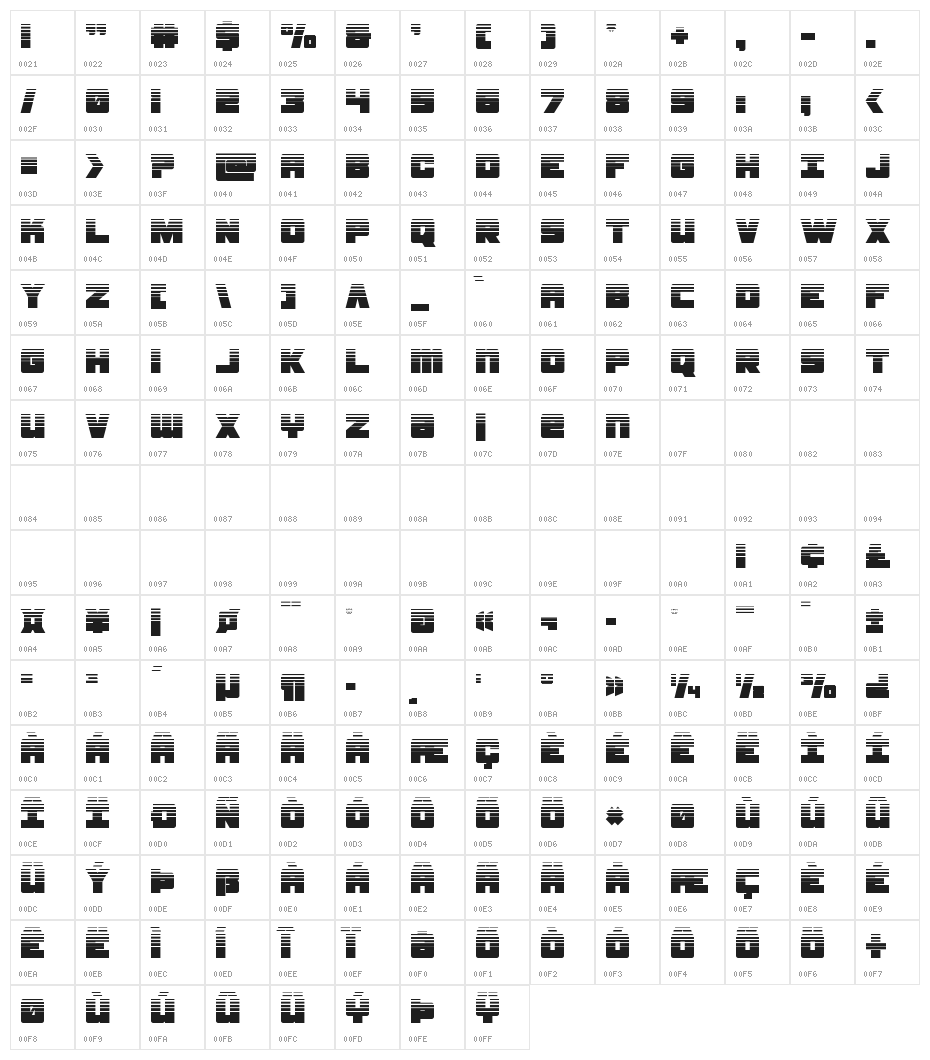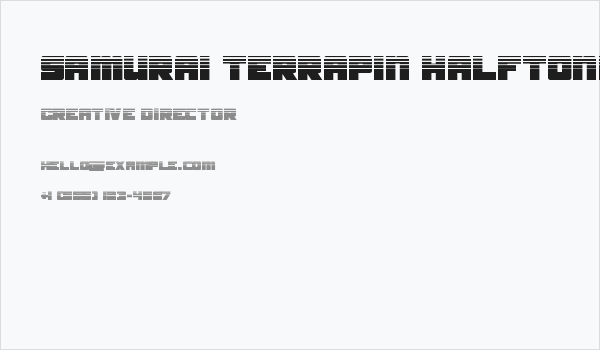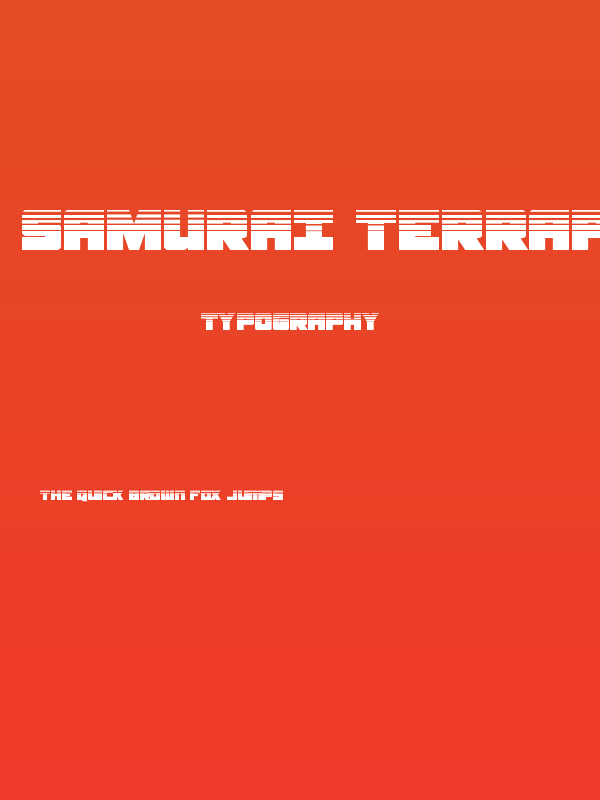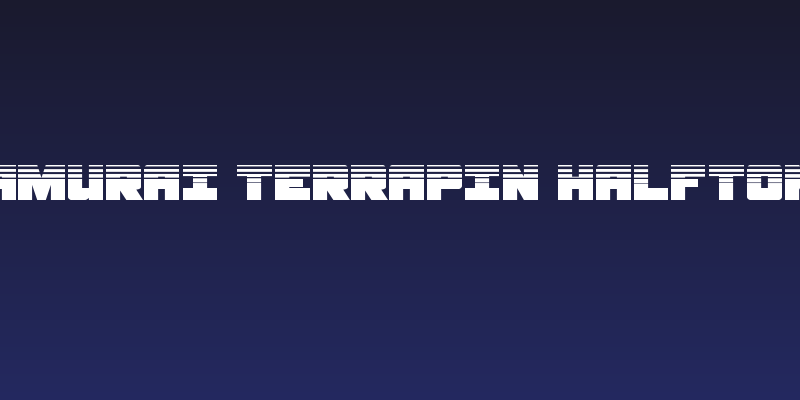
Samurai Terrapin Halftone Font
Samurai Terrapin Halftone Description
This font features a bold and striking design with a halftone effect that gives it a unique, layered appearance. The characters are constructed with a series of horizontal lines that create a sense of depth and movement. The uppercase and lowercase letters maintain a consistent style, with sharp angles and a geometric structure. The numerals and special characters follow the same design principles, ensuring uniformity across all glyphs. This font's distinct style makes it ideal for projects that require a modern and edgy look.